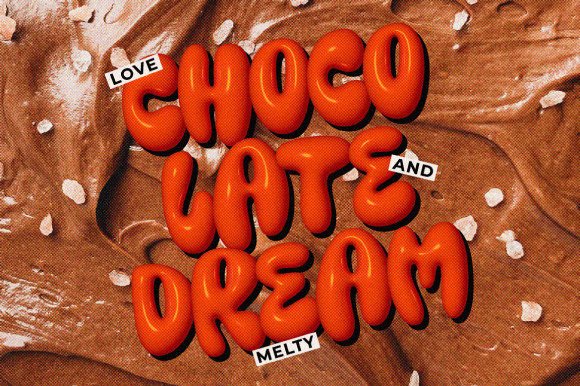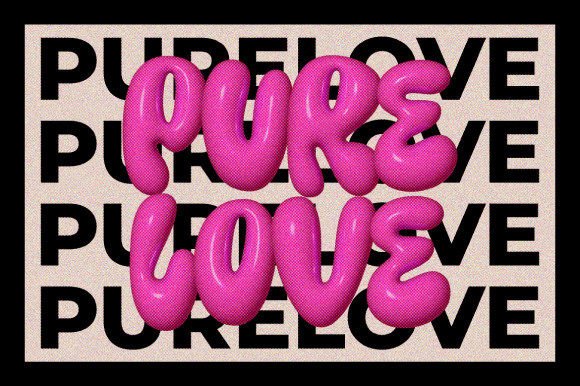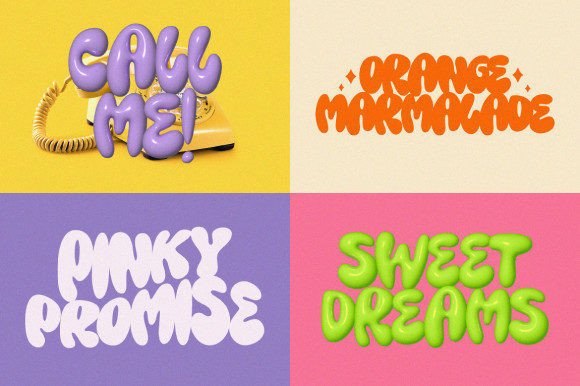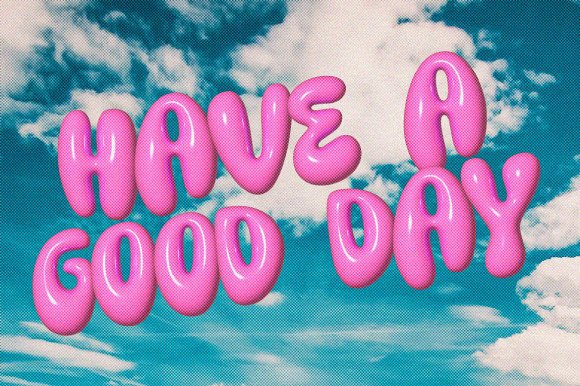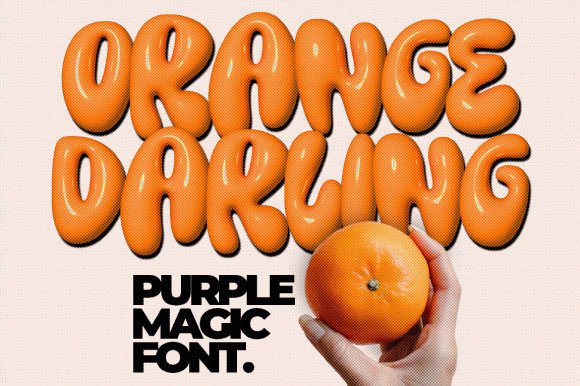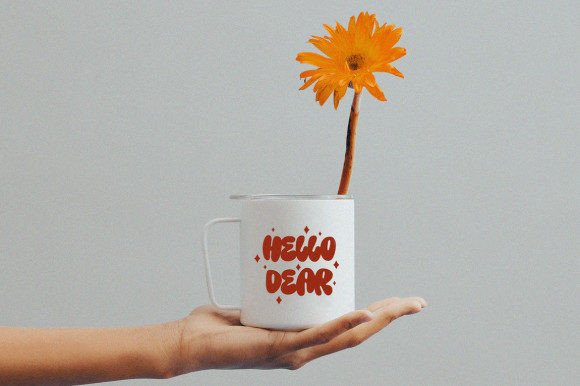
Introduction to Purple Magic Font
Have you ever been in the middle of a creative project, frantically searching for the perfect font to bring your design to life? The struggle is real, especially when you’re working on a high-quality design that demands attention to detail. This is where the Purple Magic Font comes in – a game-changing design resource that’s about to become your new go-to.
This stunning hand-drawn font boasts two styles: 3D SVG and regular, making it perfect for contemporary designs that require a touch of magic. With its chubby and playful aesthetic, it’s great for poster designs, social media posts, logos, and more. Plus, it’s a free download, so you can experiment with it without breaking the bank.
Whether you’re a seasoned designer or just starting out, the Purple Magic Font is a valuable addition to your design arsenal. Its transparent background and versatility make it a dream to work with, allowing you to create truly unique and eye-catching designs that will leave a lasting impression.
Key Features of Purple Magic Font
- Unique, magical font design with a transparent background, perfect for adding an enchanting touch to your work
- Includes a comprehensive character set, covering a wide range of languages and special characters
Honest Review: Purple Magic Font
I recently had the chance to work with the Purple Magic Font for a creative project, and I must say it’s been a game-changer. This high-quality design resource is perfect for anyone looking to add a touch of whimsy and magic to their designs.
- ✨ One of the standout features of the Purple Magic Font is its transparent background, making it super easy to use and customize.
- ✨ The font is also incredibly versatile, suitable for a wide range of creative projects, from digital art to print designs.
However, I did encounter a few limitations. ⚠️ The font doesn’t have a huge character set, which can be a bit limiting for more complex designs. Additionally, the font’s magic theme might not be to everyone’s taste.
Overall, I’m really impressed with the Purple Magic Font. It’s a unique and high-quality design resource that’s perfect for anyone looking to add a touch of magic to their creative projects. Just be aware of the limitations, and you’ll be all set for a spellbinding design experience.
Purple Magic Font
Tips for Getting the Most Out of Purple Magic Font
For a high-quality design, use the Purple Magic Font on a transparent background to give your creative project a unique and eye-catching look. You can also experiment with different font sizes and colors to add visual interest.
The Purple Magic Font is perfect for designers looking for a unique and creative design resource. It’s ideal for use in presentations, posters, and other marketing materials where a high-quality and eye-catching font is needed.
Does the Purple Magic Font have a transparent background?
Yes, the Purple Magic Font has a transparent background, making it easy to use in designs that require a seamless integration with other elements. This feature is especially useful when working with digital graphics and multimedia projects.